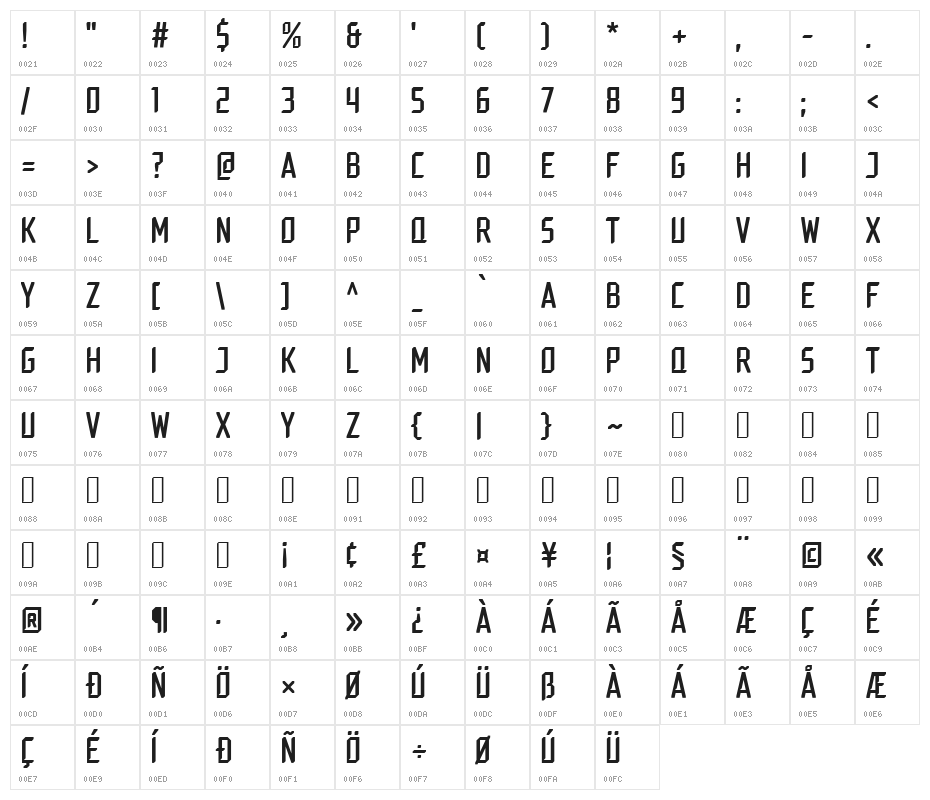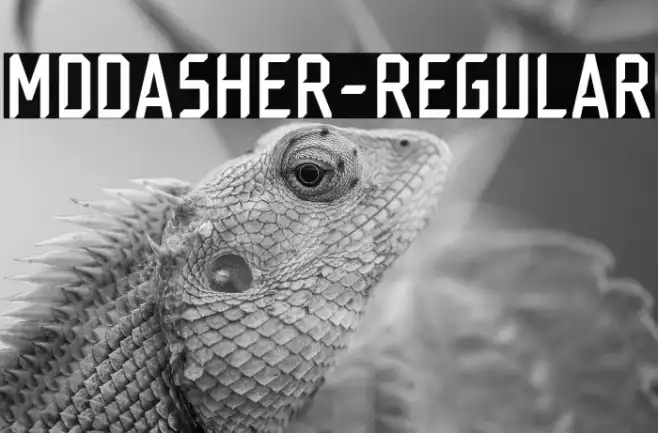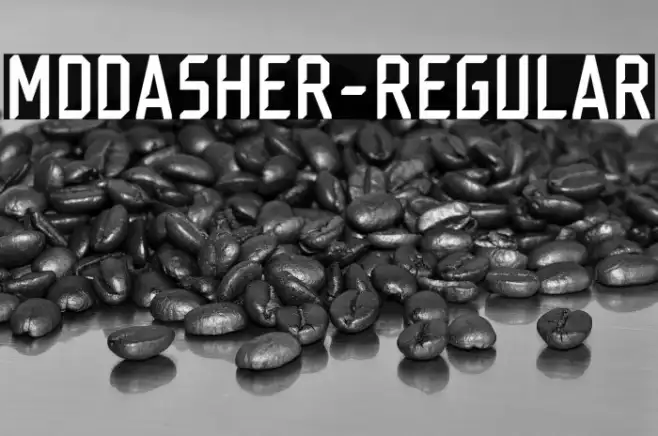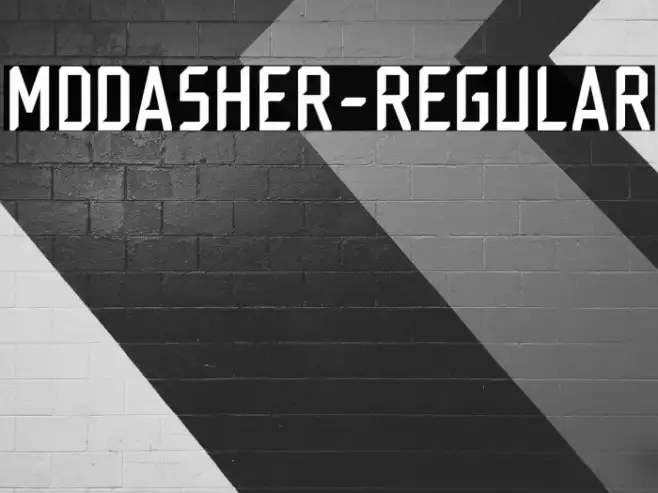
MDDasher-Regular Font
MDDasher-Regular Description
This font features a bold and geometric style with a modern twist. The characters are constructed with straight lines and sharp angles, giving it a futuristic and technical appearance. The uppercase letters are uniform in height, while the lowercase letters maintain a consistent style, enhancing readability. The numerals and special characters follow the same geometric design, ensuring a cohesive look across all text. This font's distinct style makes it ideal for projects that require a strong visual impact.
| Proposed Projects | Ideal for technology branding, video game titles, futuristic posters, and digital interfaces. |